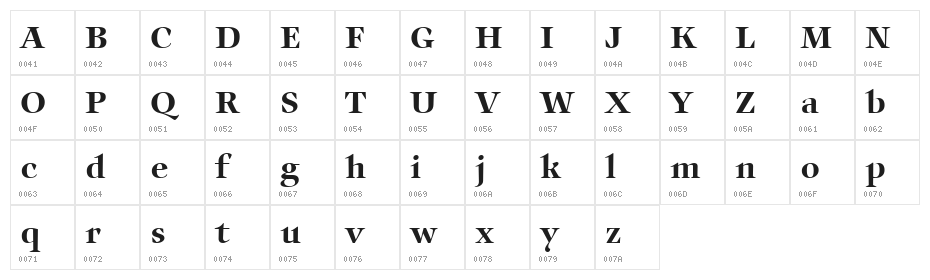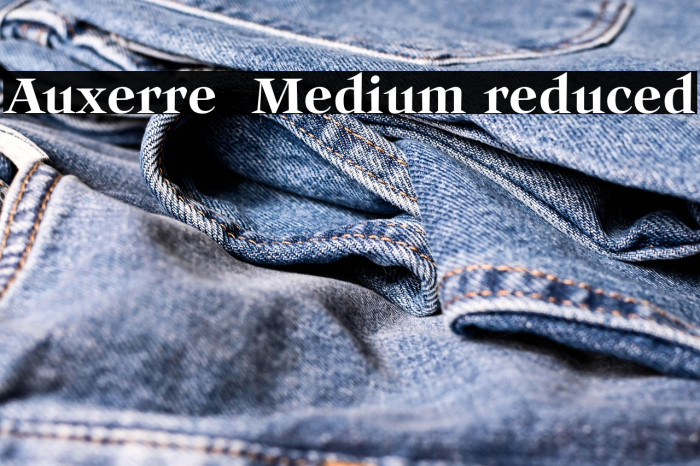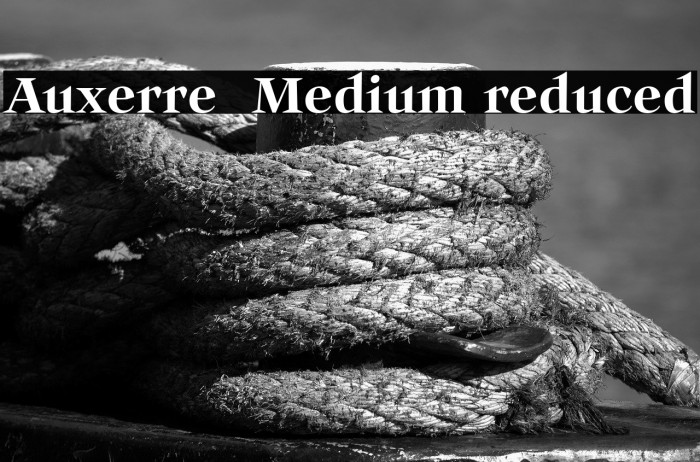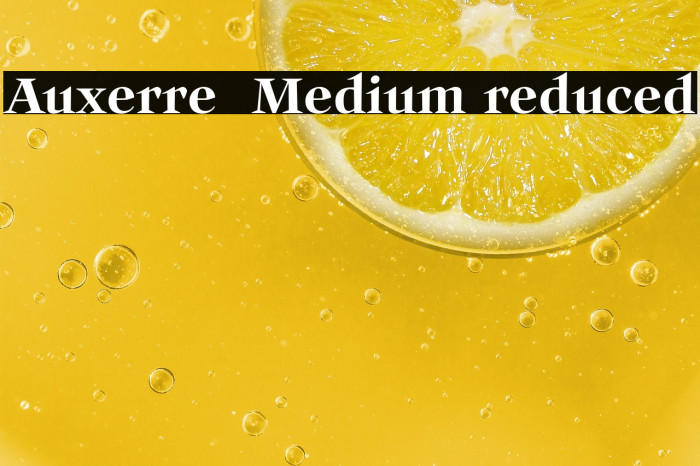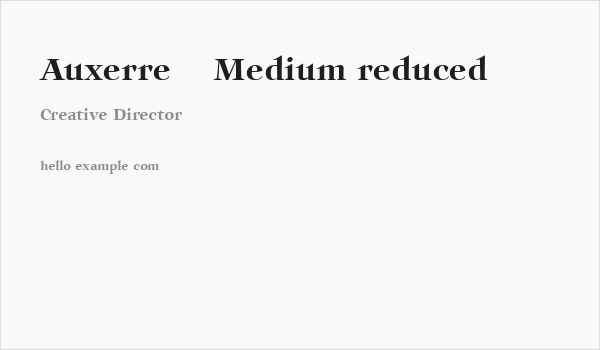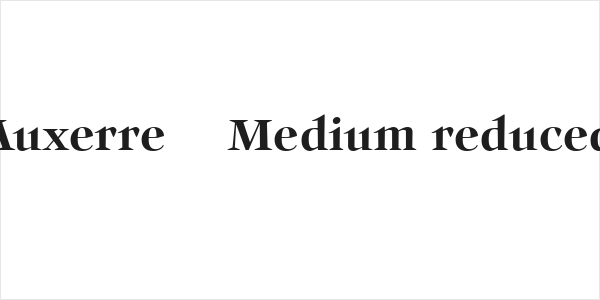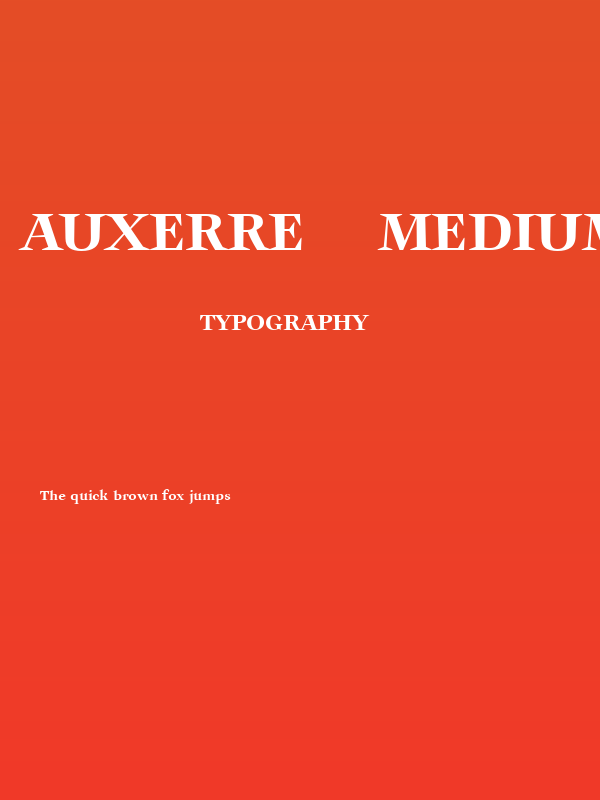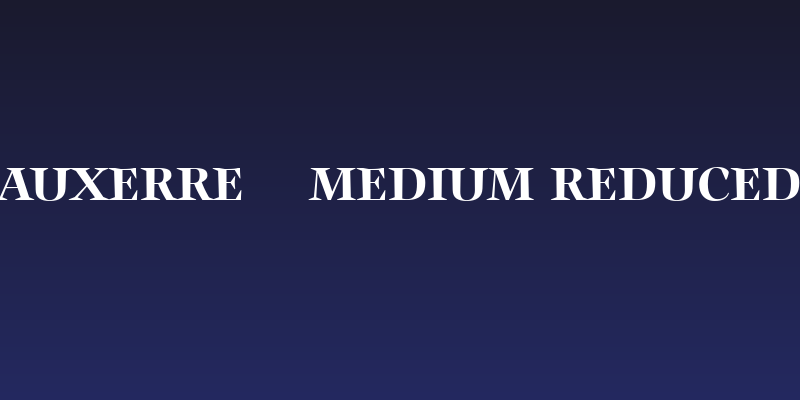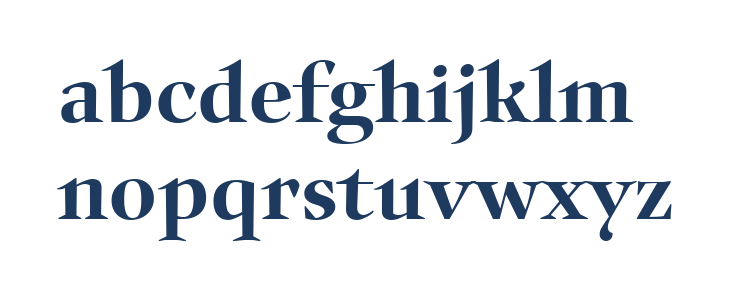
Auxerre 65 Medium reduced Font
Auxerre 65 Medium reduced Description
This font exhibits a classic serif style with a strong presence and elegant curves. The serifs are pronounced, adding a touch of sophistication and tradition. The uppercase letters are bold and commanding, while the lowercase letters maintain a consistent flow with slightly rounded edges. The overall appearance is balanced, with a medium weight that ensures readability without sacrificing style. The numerals are clear and distinct, matching the overall aesthetic of the alphabet. Special characters are well-integrated, maintaining the font's cohesive look. This font is ideal for projects that require a touch of elegance and formality.
| Proposed Projects | Ideal for book covers, formal invitations, branding, and editorial design. |